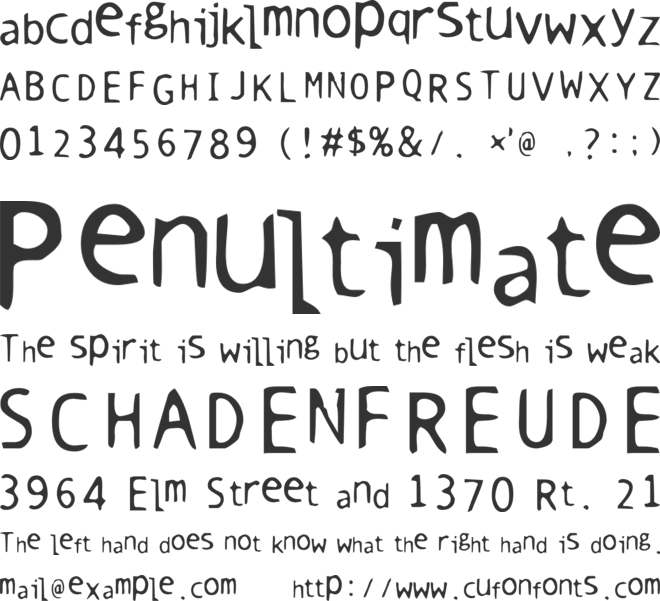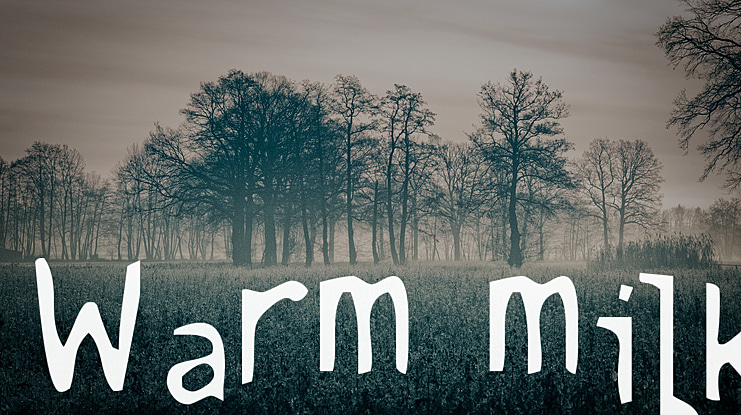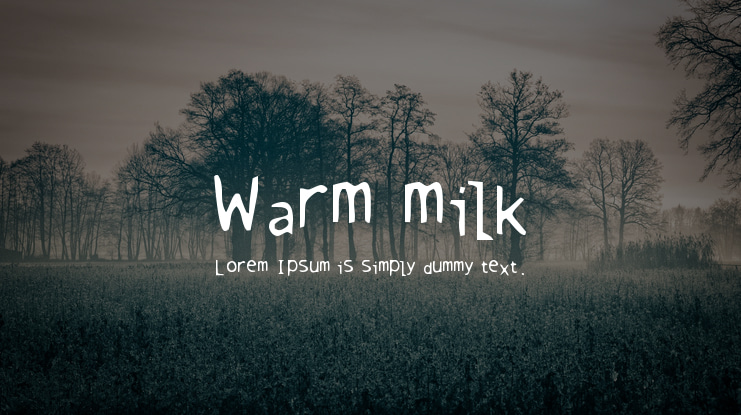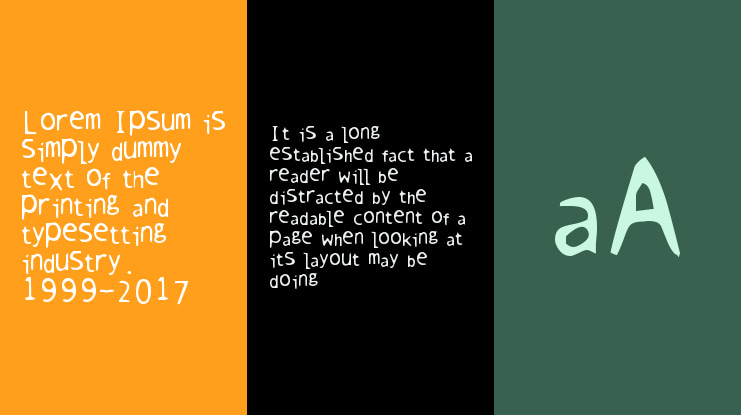
Warm milk Font
Go and grab this grungy font! - The font was made in a flash. I guess it took me about half an hour to do this. I know it aint pretty, but then again...it's not supposed to be pretty at all!